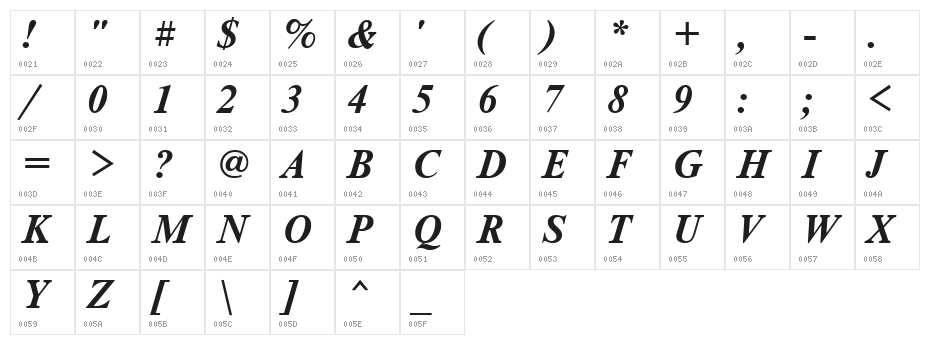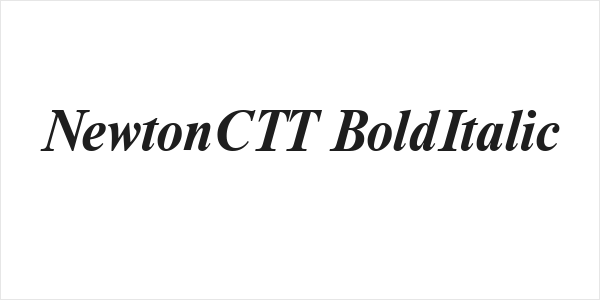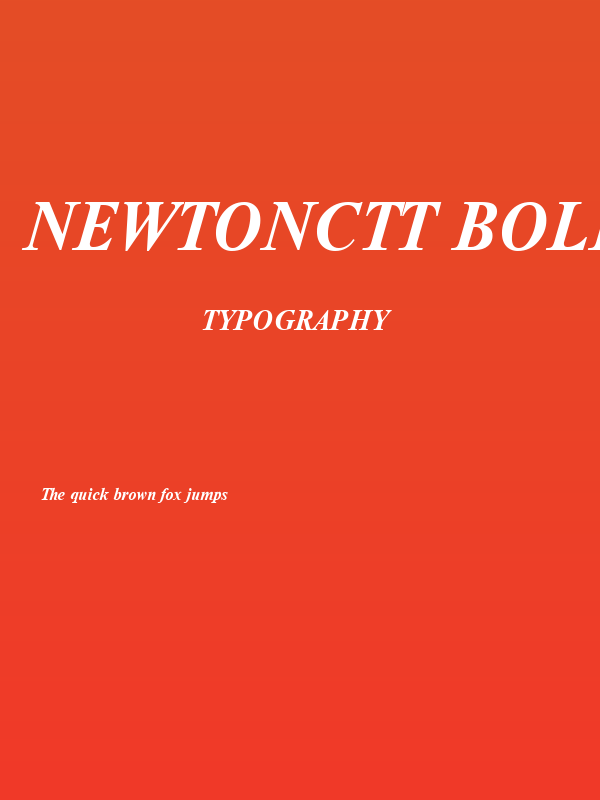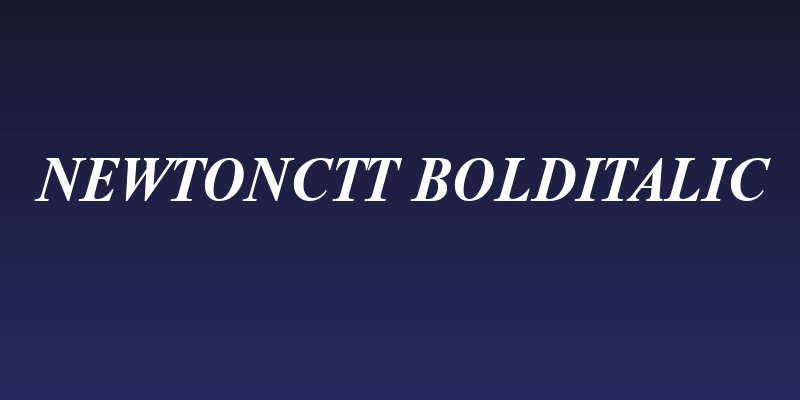
NewtonCTT BoldItalic Font
NewtonCTT BoldItalic Description
This font exhibits a classic serif style with a bold and italicized appearance. The strokes are strong and pronounced, giving each character a sense of authority and elegance. The serifs are well-defined, adding a traditional touch to the overall design. The italic slant enhances the dynamic feel, making it suitable for impactful and sophisticated applications. The numerals are consistent with the alphabet, maintaining the bold and italic characteristics. Special characters are also included, ensuring versatility in various typesetting needs.
| Use Case | Headlines, Logos, Editorial design |
| Proposed Projects | Ideal for book covers, formal invitations, branding materials, and editorial design. |